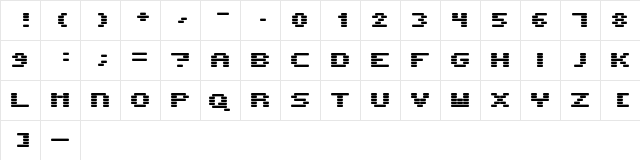
Horic Regular
| Foundry | http://fontstruct.fontshop.com |
| Designer | TomoAlien |
| Year | 2010 |
Design Context for Horic Typeface
Horic is a composed and adaptable typeface that performs quietly and consistently across a wide range of design contexts.